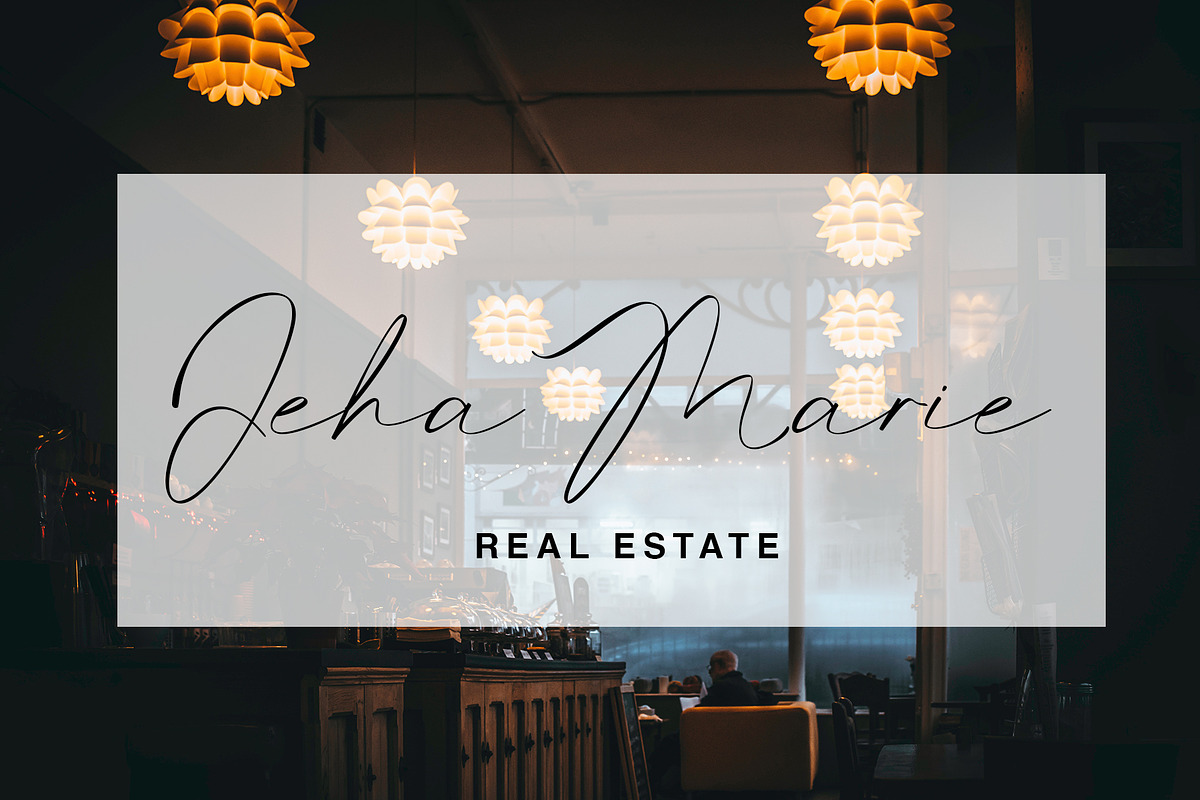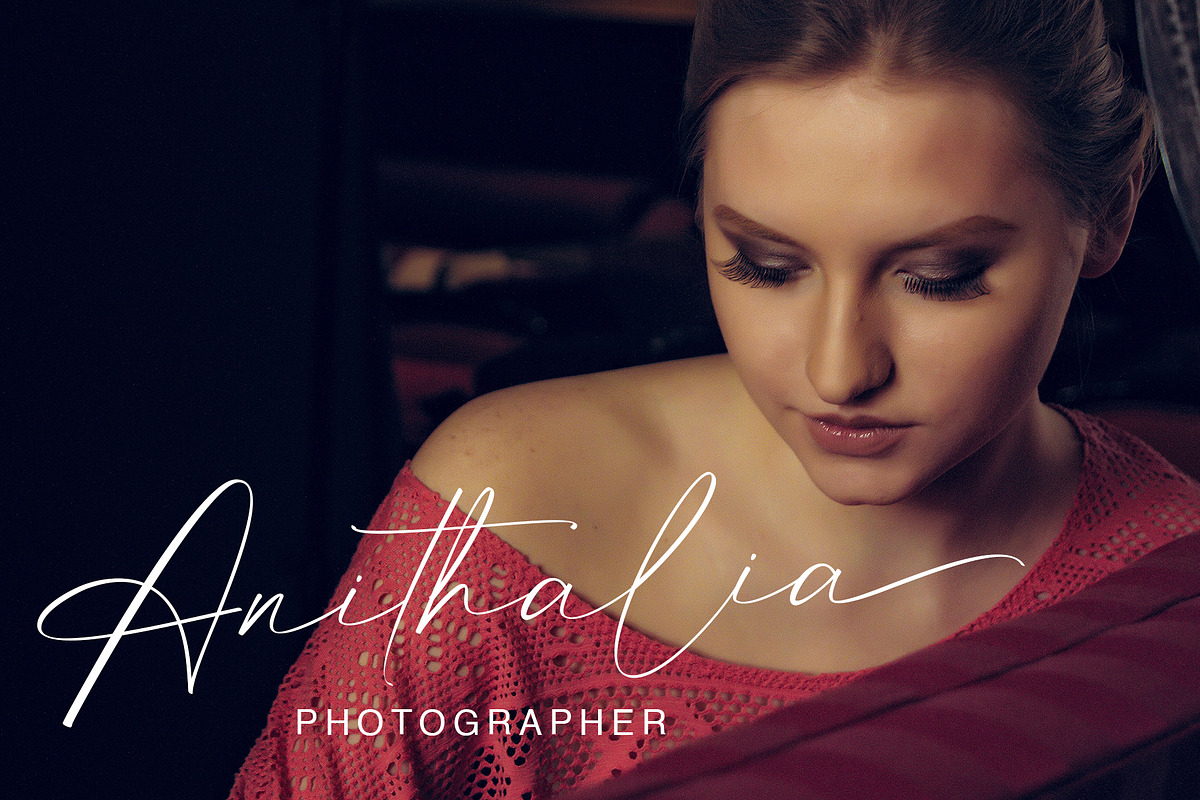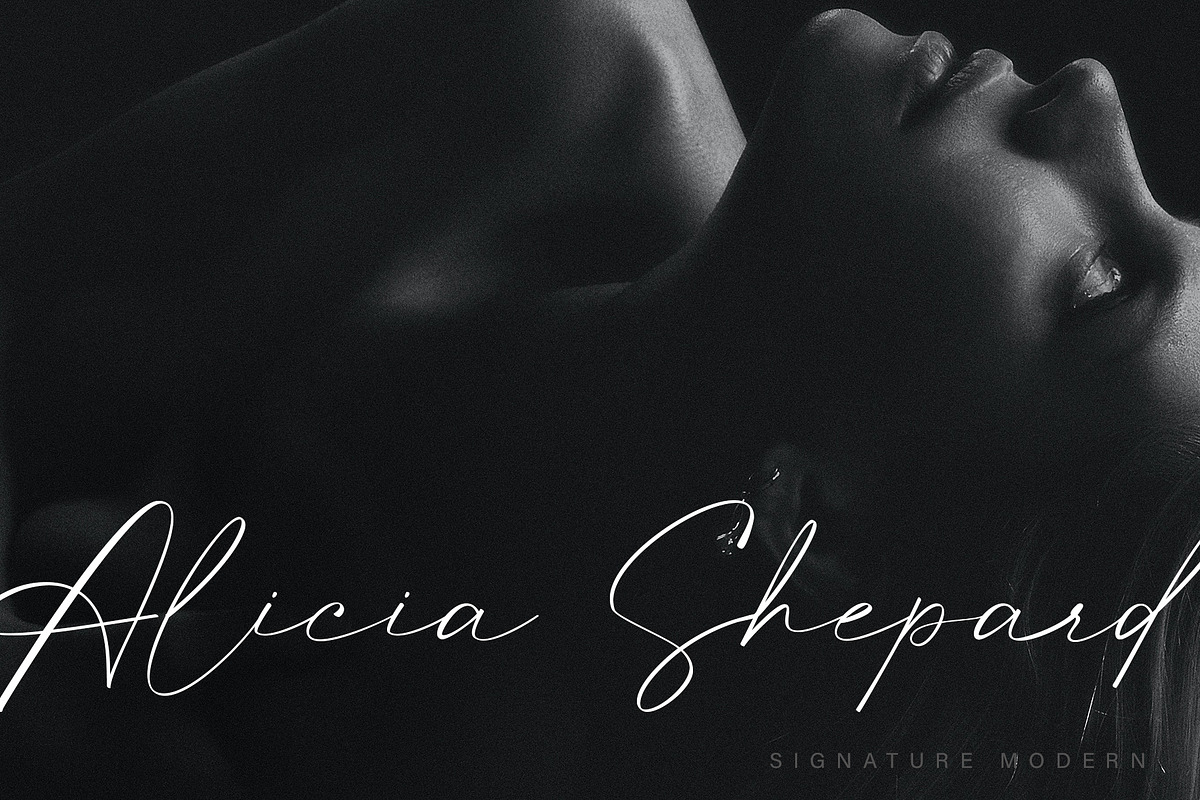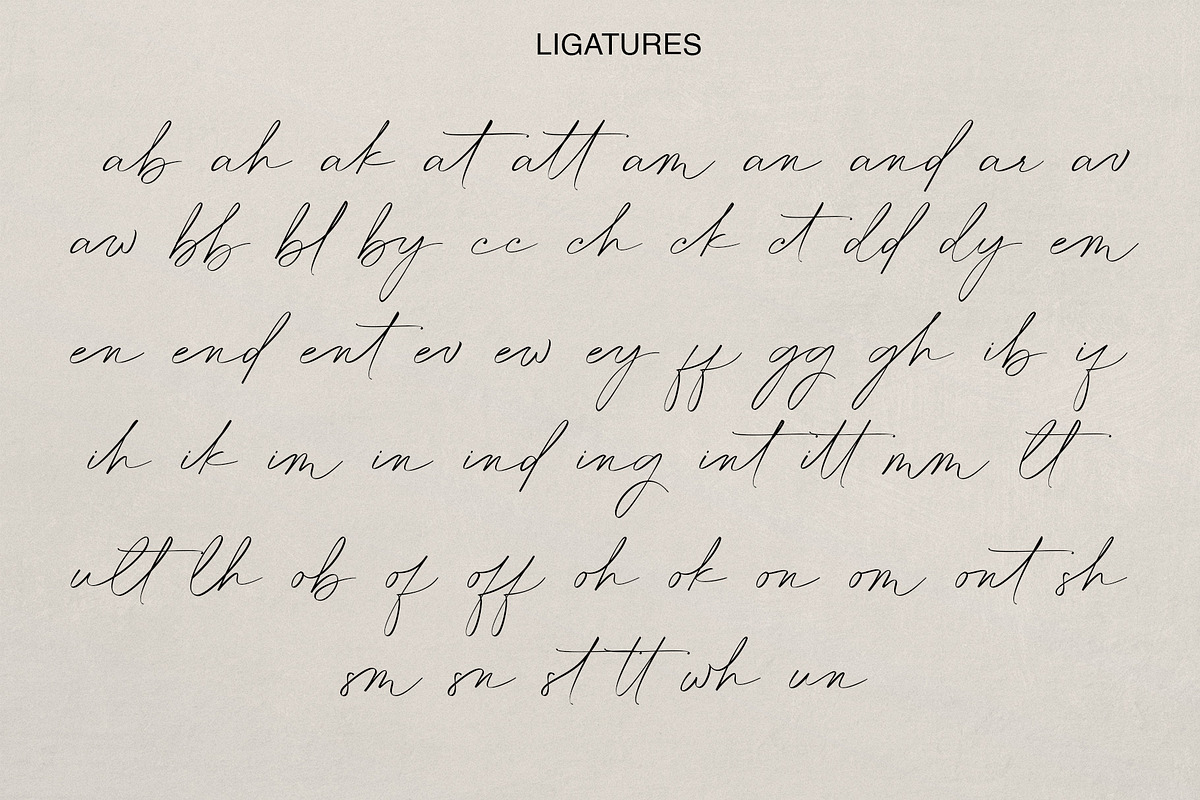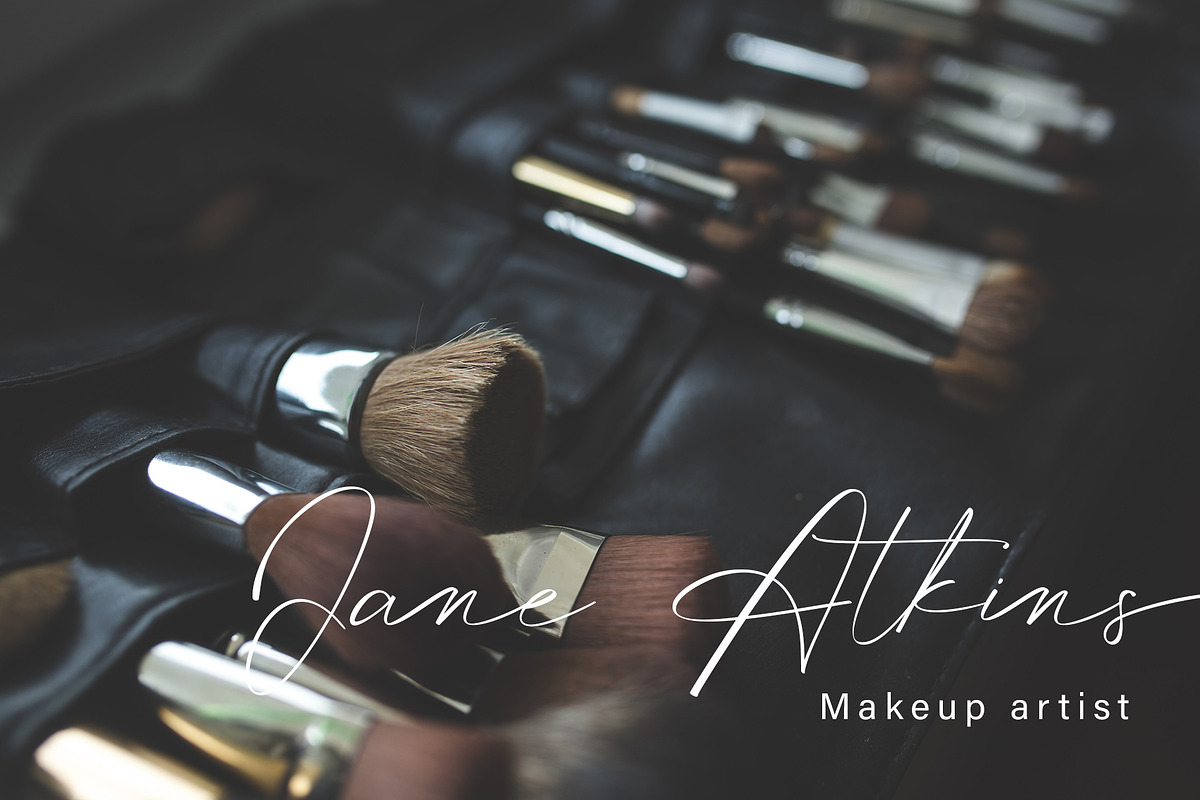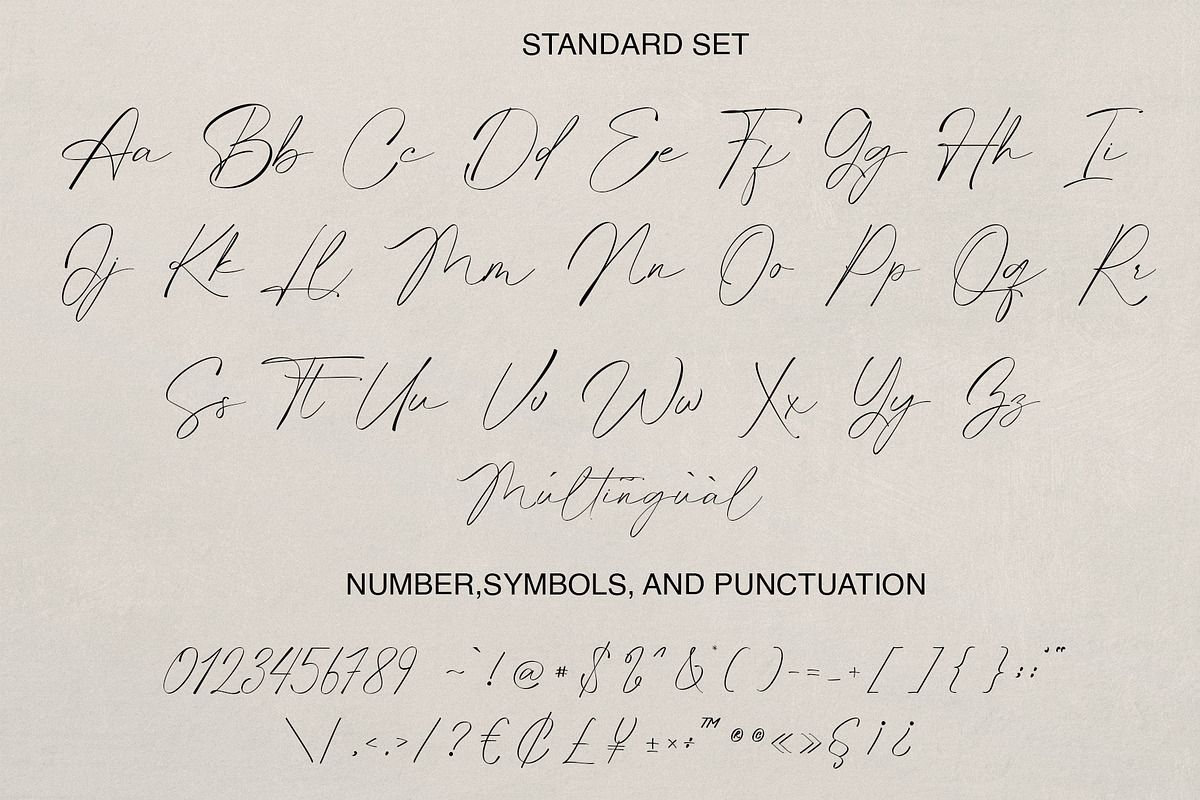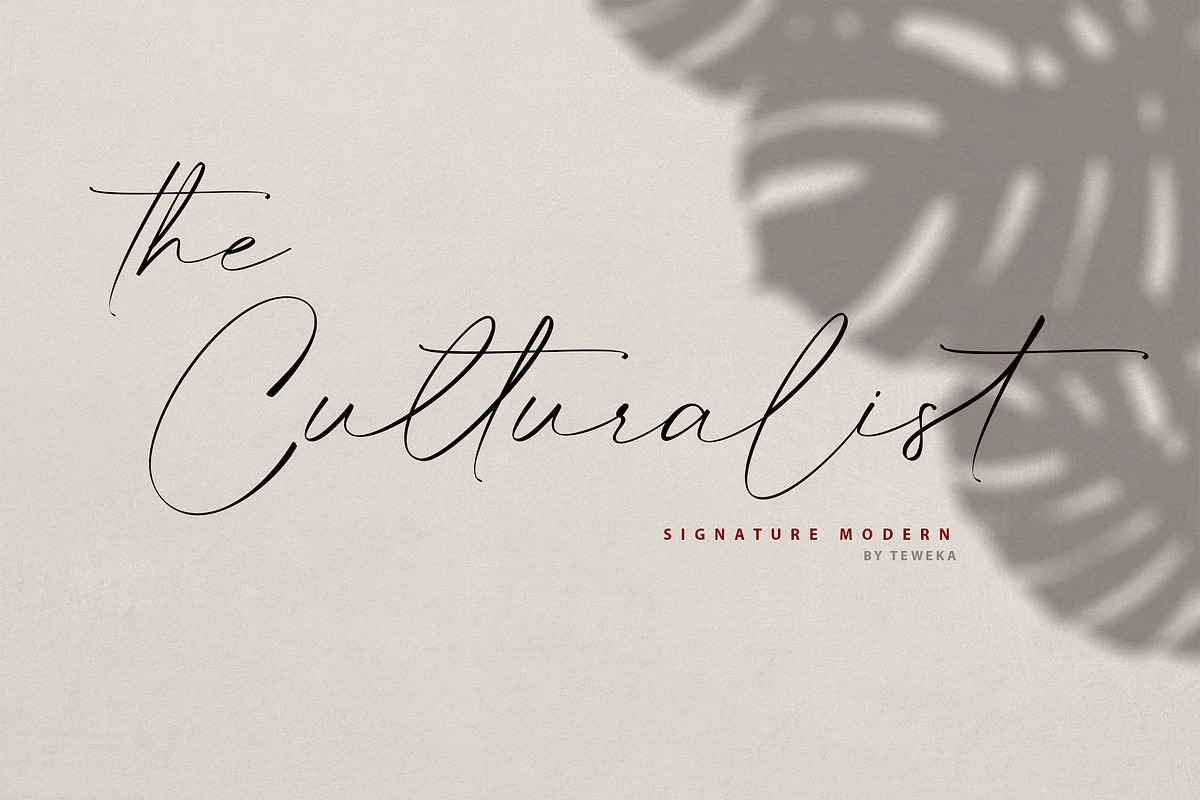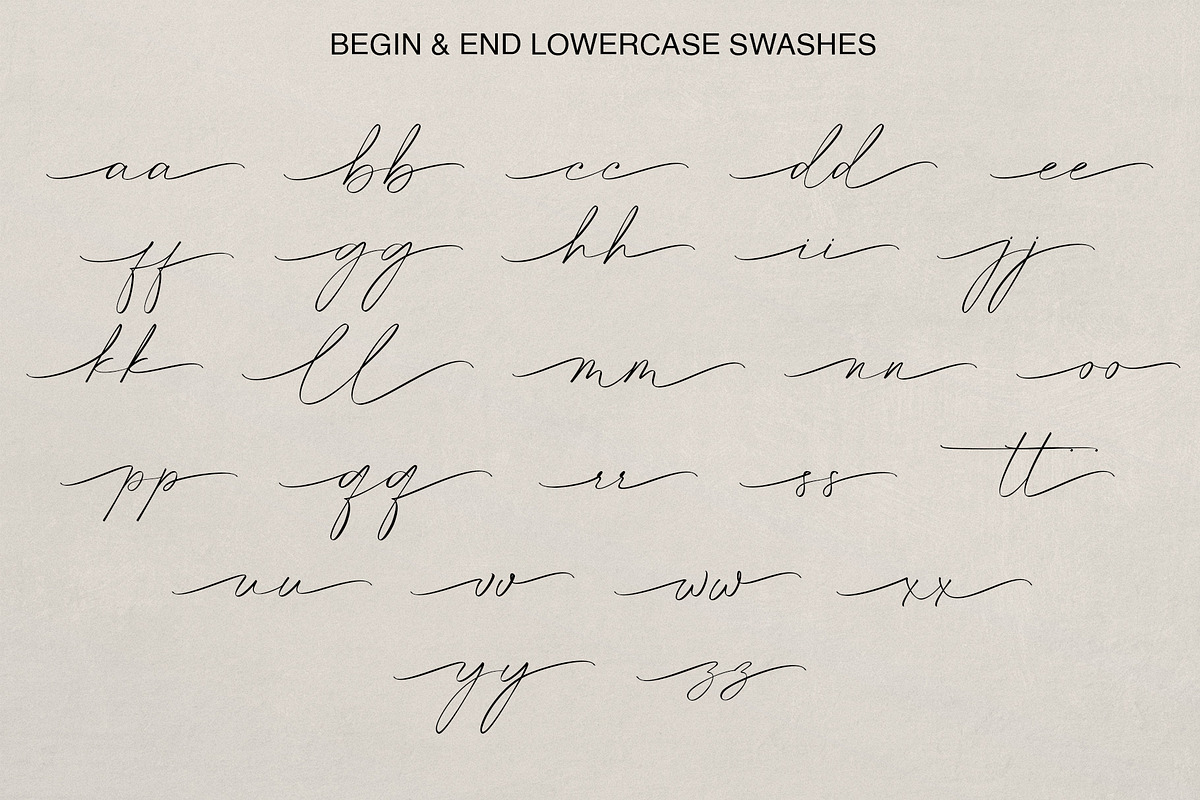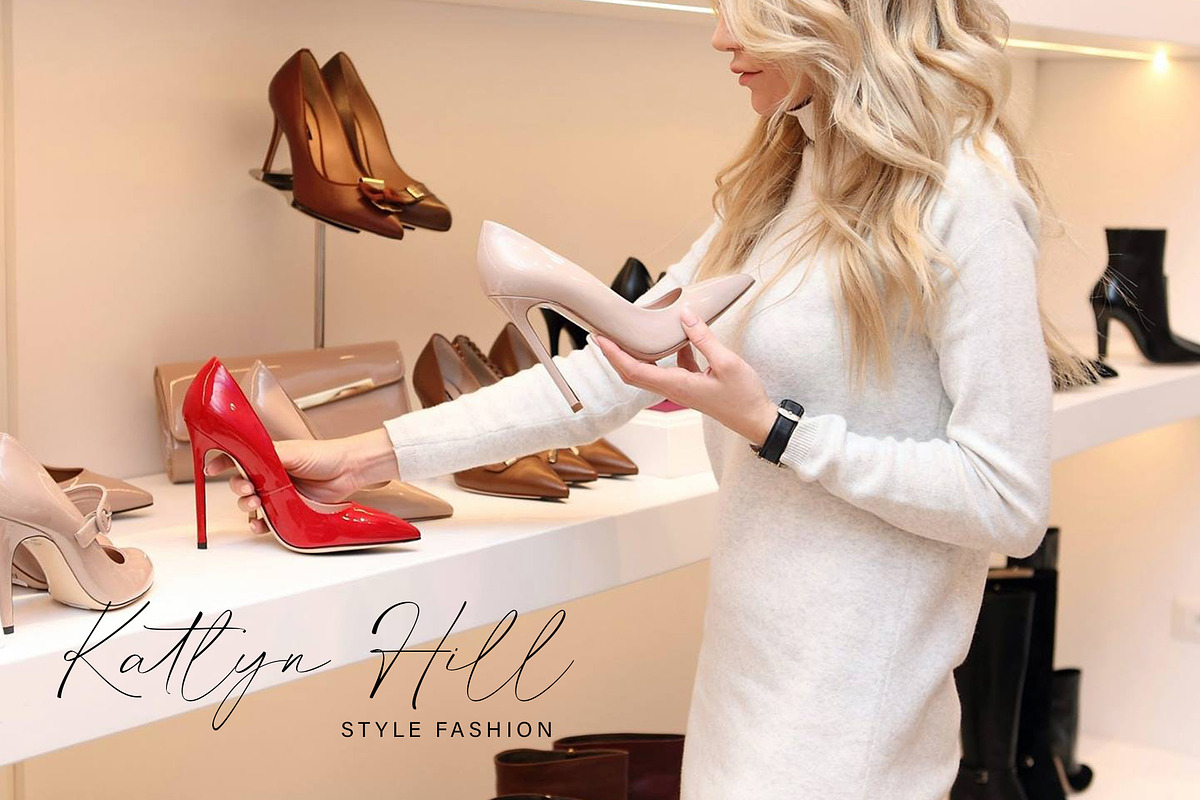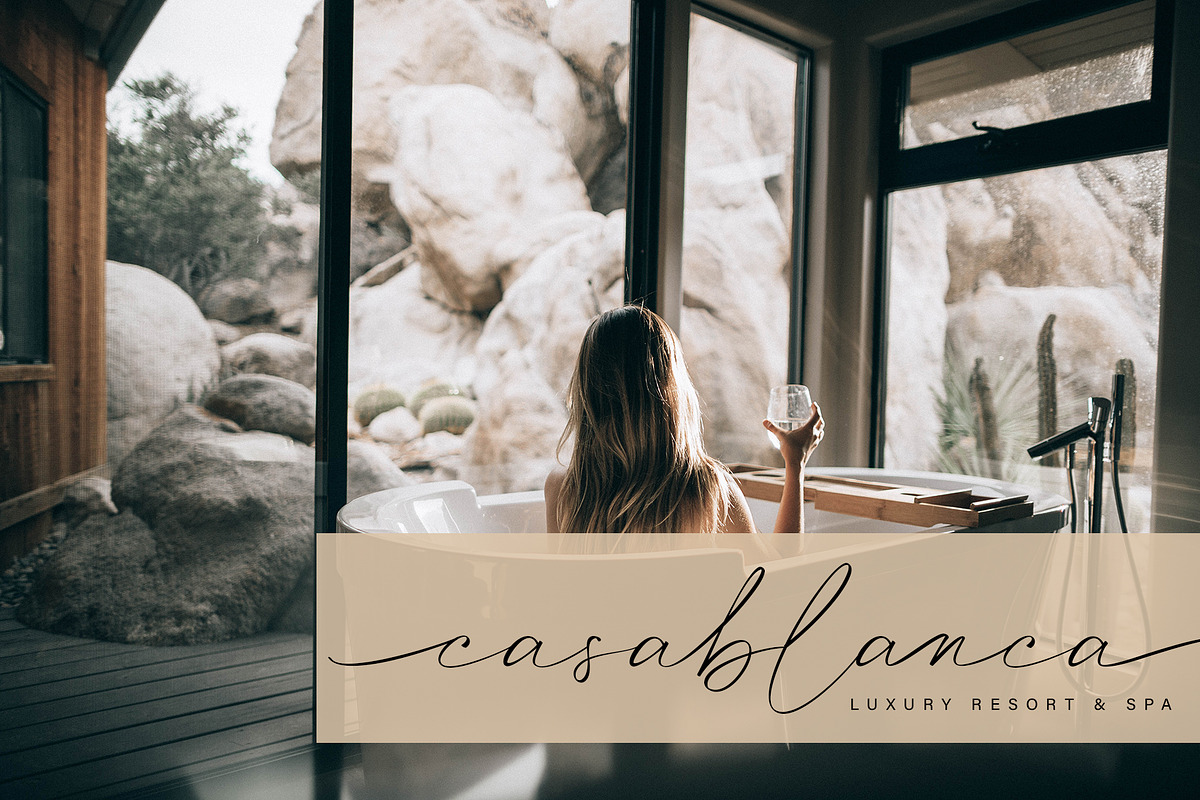
The Culturalist | Signature Modern
The Culturalist is a handwritten signature Modern font with a calligraphy flair, ideal for creating handwritten-style logos, wedding stationery, photographer watermarks logos, modern websites, and more.
The Culturalist features handwritten ligatures, and beginning and end swashes for lowercase letters.